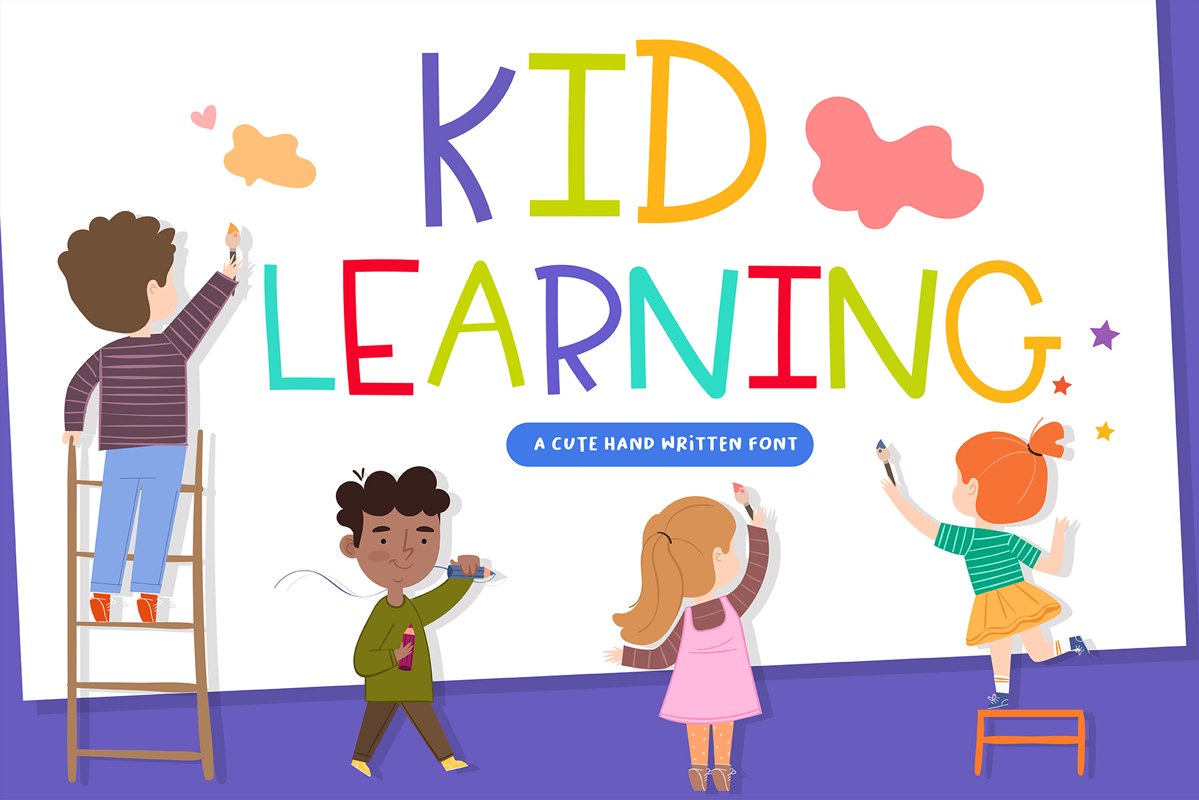
Kid Learning Handwritten- cute kid font Kawaii style!
Kid Learning Baby Font- Handwritten Kawaii style. English language only
Are you looking for cute Handwritten font for your project? Then you have come the right land!!
This Font is perfect for kid greeting card, Print t shirt, fashion artworks or just play around. Festival like Valentine's Day, Kid's Party, wedding!!